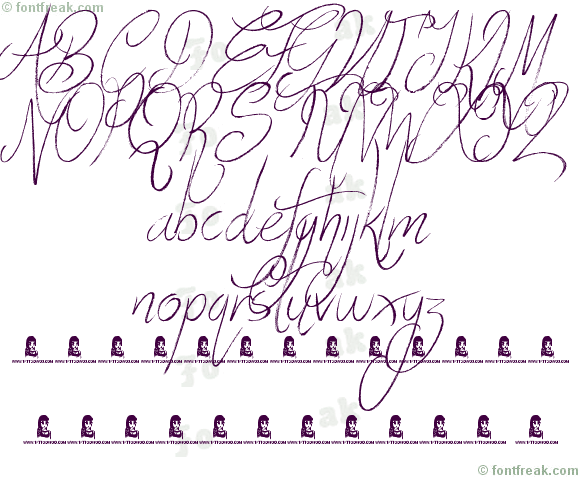
Fun Things
About Fun Things
The Fun Things font by Jonathan S. Harris is a delightful display typeface that exudes a playful charm, making it an excellent choice for various creative projects. This font falls under the decorative category, characterized by its whimsical, handwritten style that captures the essence of joy and spontaneity. The strokes feature a variable weight, with sweeping curves and lively flourishes that add a sense of movement and energy to each letter. The spacing is well-balanced, ensuring readability while maintaining its artistic flair.
Ideal use cases for the Fun Things font include wedding invitations, where its playful elegance can set a joyful tone; children's party decorations, providing a fun and inviting atmosphere; greeting cards that require a personal touch; and promotional materials for creative businesses looking to stand out. Graphic designers, small business owners, and content creators will find this font particularly appealing as it adds a unique character to their projects, making them more engaging and visually striking.